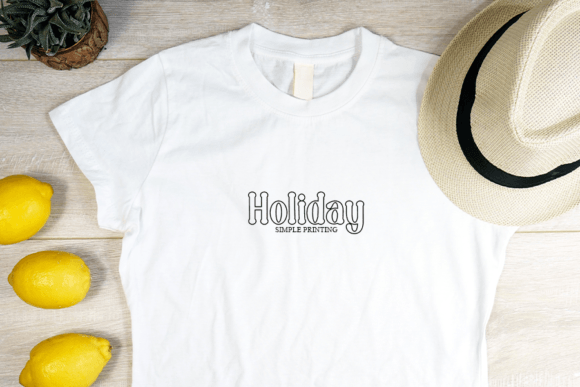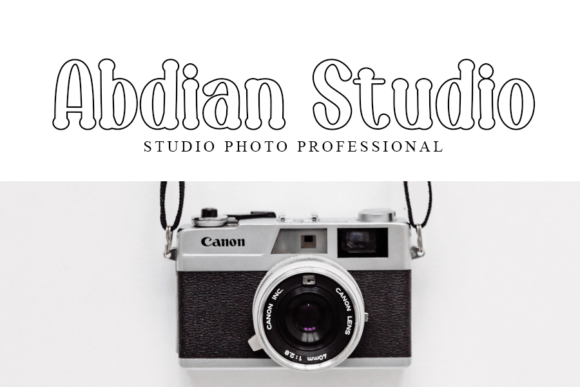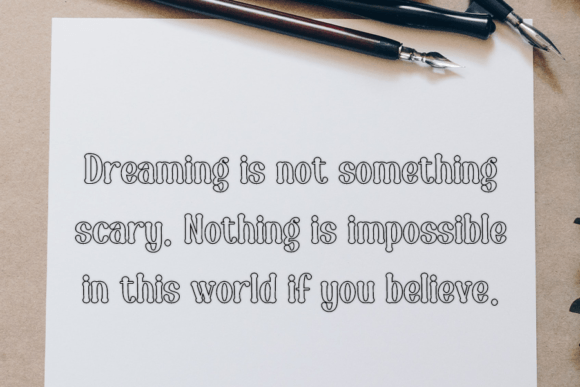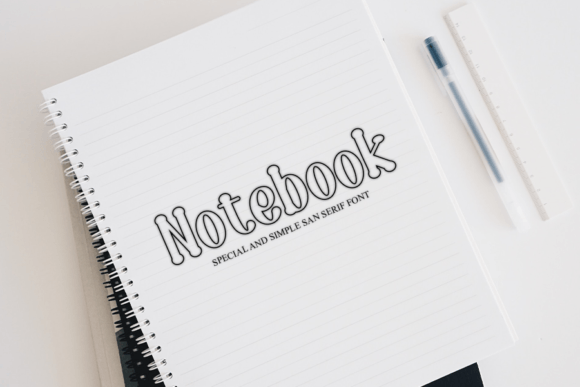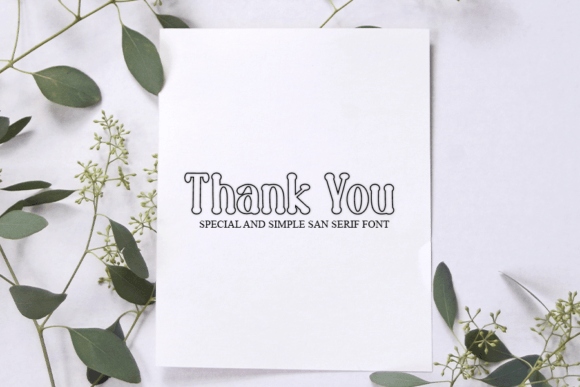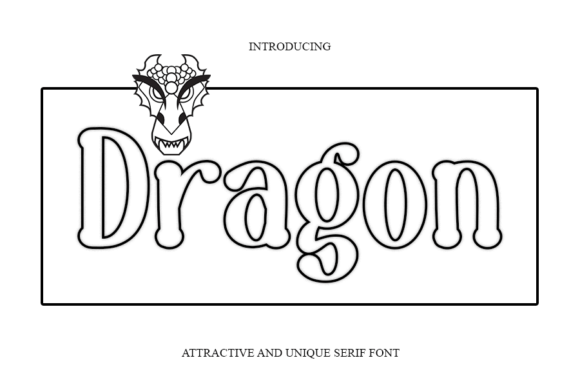
Dragon Font: The Cool and Modern Sans Serif Font for All Occasions
Are you tired of using the same old fonts for your designs, crafts, and presentations? Look no further than the Dragon Font! This cool and modern sans serif font is perfect for anyone looking to add a touch of excitement to their projects. Whether you’re a designer, crafter, or simply someone who loves to create, Dragon Font has the potential to become your go-to font for all occasions.
What is Dragon Font?
Dragon Font is a sans serif font that exudes a sense of modernity and coolness. Its clean lines and sleek design make it perfect for a wide range of applications, from digital designs to crafts, presentations, and even greeting cards. The font is highly versatile, making it an excellent addition to any designer’s or crafter’s toolkit.
Key Features of Dragon Font
- Modern and Cool Design: Dragon Font boasts a sleek and contemporary design that is sure to grab attention.
- Sans Serif: The font’s sans serif design makes it easy to read and perfect for digital applications.
- Highly Versatile: Dragon Font can be used for a wide range of projects, from crafts to digital designs, presentations, and greeting cards.
- Easily Readable: The font’s clean lines and simple design make it easy to read, even at small sizes.
Uses for Dragon Font
Dragon Font is an incredibly versatile font that can be used for a wide range of projects. Here are just a few ideas to get you started:
- Crafts: Use Dragon Font to add a modern touch to your scrapbooking, card making, and other crafts.
- Digital Designs: Dragon Font is perfect for digital designs, including social media graphics, blog posts, and website headers.
- Presentations: Add a touch of coolness to your presentations with Dragon Font.
- Greeting Cards: Use Dragon Font to create modern and stylish greeting cards for any occasion.
Why Choose Dragon Font?
So why choose Dragon Font over other fonts? Here are just a few reasons:
- Unique Design: Dragon Font has a unique and modern design that is sure to stand out.
- Easy to Read: The font’s clean lines and simple design make it easy to read, even at small sizes.
- Highly Versatile: Dragon Font can be used for a wide range of projects, making it an excellent addition to any designer’s or crafter’s toolkit.
Tips for Using Dragon Font
Here are a few tips for using Dragon Font:
- Use it as a Headline Font: Dragon Font is perfect for headlines and titles, where its modern and cool design can really shine.
- Pair it with Other Fonts: Dragon Font pairs well with other fonts, so don’t be afraid to experiment with different combinations.
- Experiment with Different Sizes: Dragon Font looks great at a wide range of sizes, so don’t be afraid to experiment with different sizes to find the one that works best for your project.
In conclusion, Dragon Font is a cool and modern sans serif font that is perfect for anyone looking to add a touch of excitement to their designs, crafts, and presentations. Its highly versatile design makes it an excellent addition to any designer’s or crafter’s toolkit. With its unique design, ease of readability, and versatility, Dragon Font has the potential to become your go-to font for all occasions.